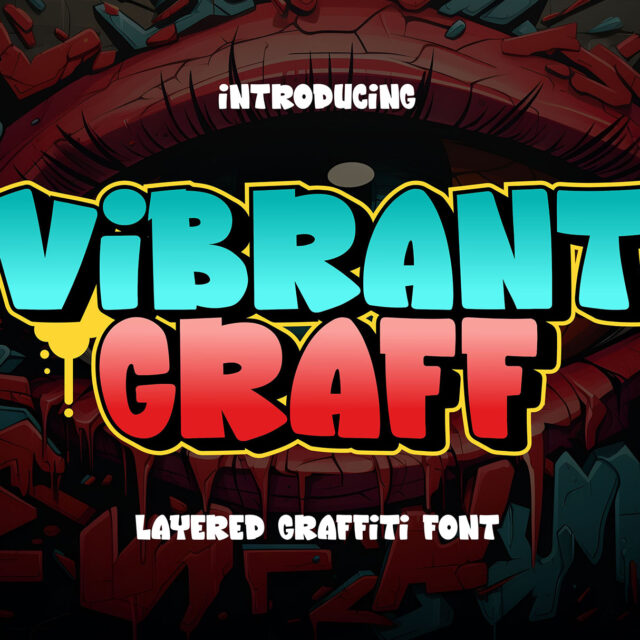
About Vibrant Graff
“Vibrant Graff” is a bold graffiti font featuring thick letterforms with both normal and shadowed characters. Graffiti fonts are known for their expressive and dynamic style, often characterized by bold strokes and urban-inspired designs. The addition of shadowed characters introduces depth and dimension to the text, creating a three-dimensional effect that adds visual interest.
With its thick letterforms and shadowed characters, “Vibrant Graff” exudes energy and dynamism, making it ideal for projects that require a bold and attention-grabbing typographic style. Whether used for posters, street art, album covers, or other urban-themed designs, this font is sure to make a strong visual impact and stand out from the crowd.